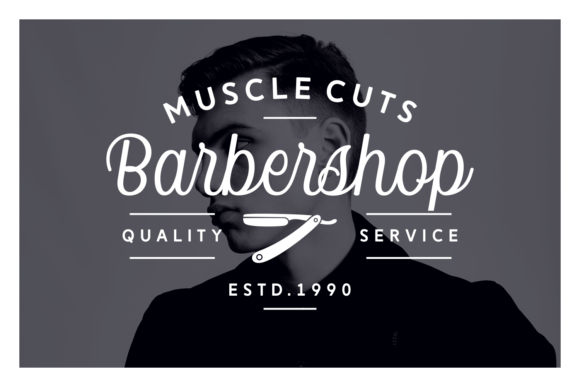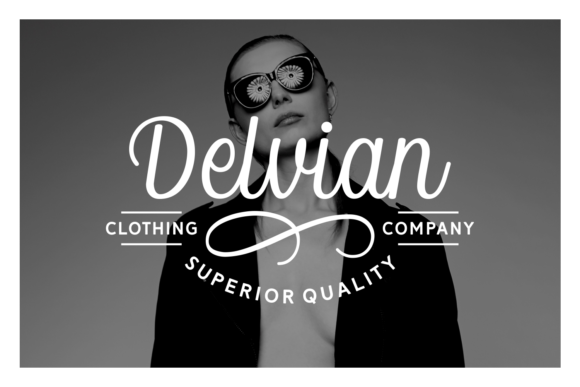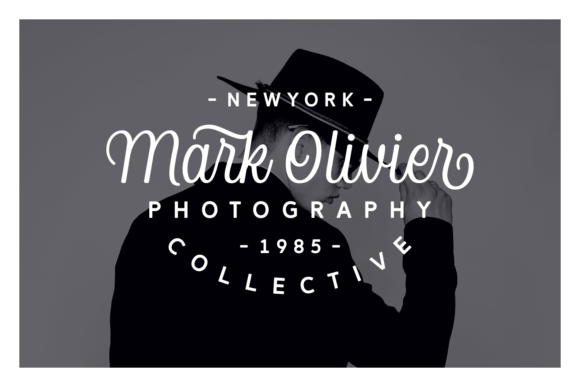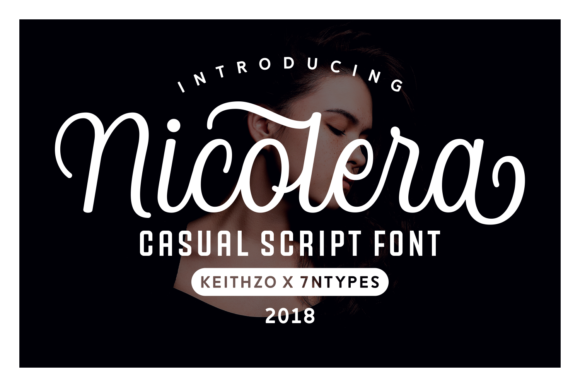
Introduction to Nicolera Font
Nicolera is a casual, yet very elegant handwritten typeface.
The fact that Nicolera is very legible, combined with the smooth roundings and astonishing details, make it a great font for playful branding It comes with stunning alternates, featuring beautiful terminal swashes, as well as a mini-set of dingbats.